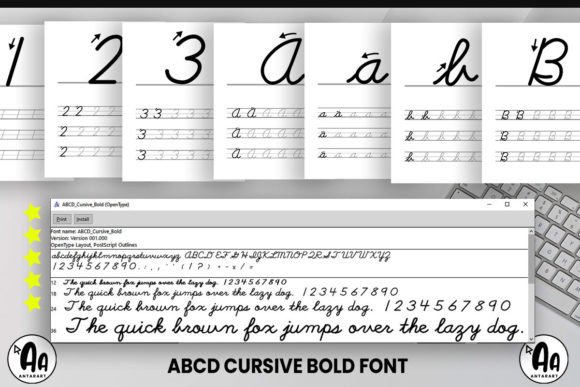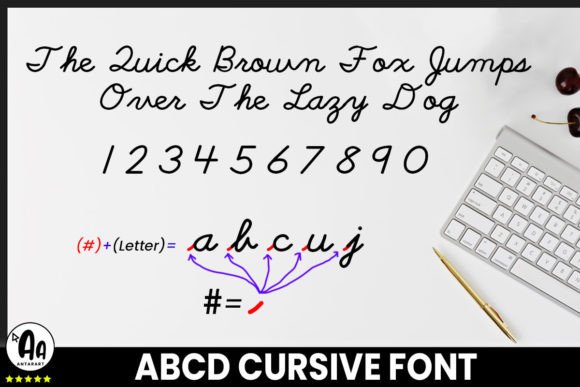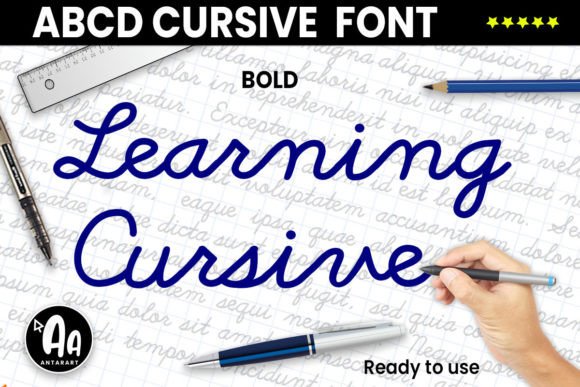
The Power of Abcd Cursive Bold Font: Unlocking Creative Possibilities
I’ll never forget the moment I stumbled upon the Abcd Cursive Bold Font while working on a project for a client who needed a unique and engaging way to teach cursive handwriting to their students. As a designer, I was tasked with creating worksheets that would make learning fun and interactive. I scoured the internet for the perfect font, and when I found Abcd Cursive Bold Font, I knew I had hit the jackpot! ✨
A Honest Review: The Good and the Great
• 💯 Versatility: This display font is incredibly versatile and can be used to create thousands of worksheets using any software.
• 🎉 Learning Resource: It’s a great learning resource for those who want to learn or teach Cursive handwriting enjoyably and interactively.
• 👍 Easy to Read: The bold and cursive design makes it easy to read and understand, even for young learners.
• 🤩 Customization: The font comes with OpenType features, glyphs, and stylistic alternates, giving you endless possibilities for customization.
• 🤔 Limited Use Cases: While the font is amazing for educational purposes, it may not be the best fit for other design projects that require a more formal or traditional look.
• ⚠️ Glyph Limitations: Some users have reported that the font’s glyph library could be more extensive, but this hasn’t been a deal-breaker for me.
The Story Behind Abcd Cursive Bold Font
The Abcd Cursive Bold Font was designed with the intention of creating a fun and engaging way to teach cursive handwriting. The designer, inspired by the beauty of cursive script, aimed to create a font that would make learning enjoyable and interactive. With its bold and cursive design, Abcd Cursive Bold Font has become a popular choice among educators and designers alike.
What is Abcd Cursive Bold Font? Abcd Cursive Bold Font is a display font designed for educational purposes, specifically for teaching cursive handwriting.
Does Abcd Cursive Bold Font come with OpenType features? Yes, Abcd Cursive Bold Font comes with OpenType features, glyphs, and stylistic alternates, giving you endless possibilities for customization.